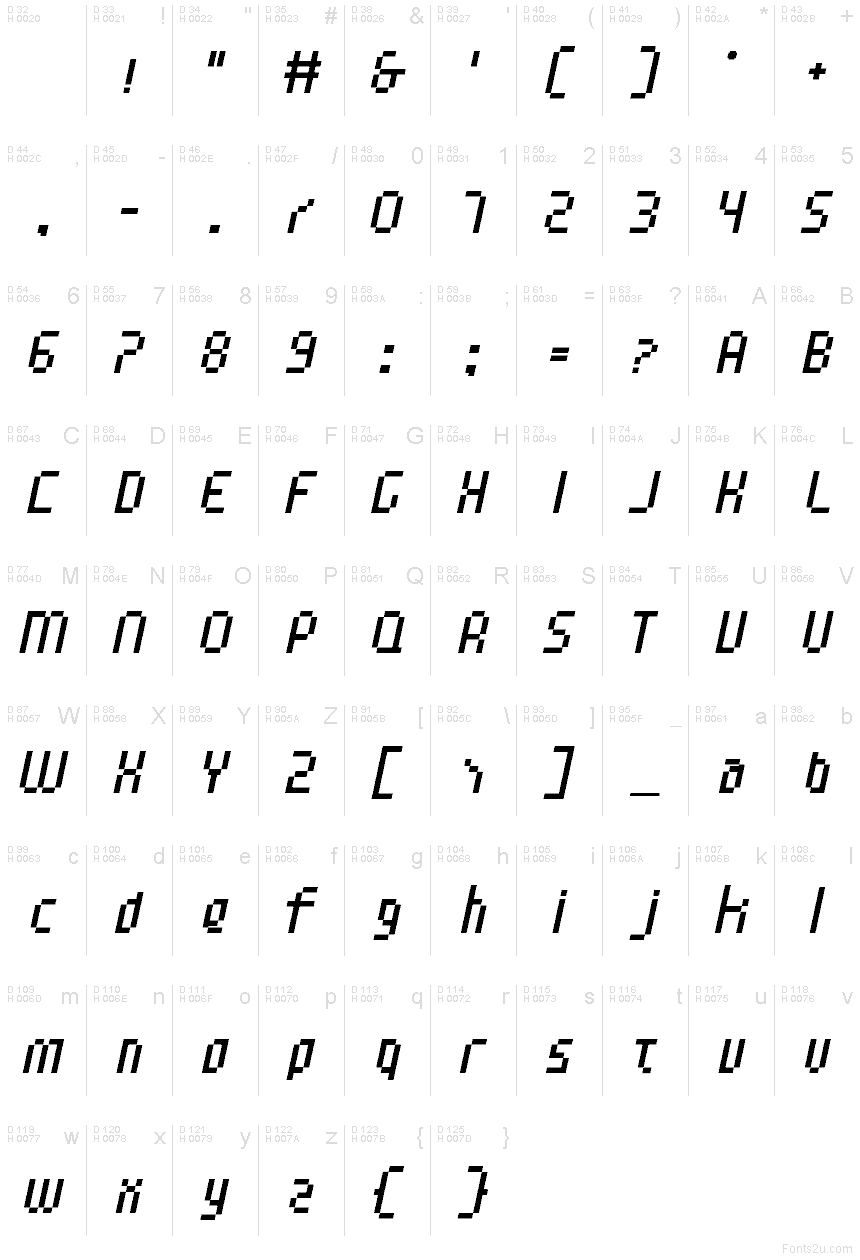
Speed Pixel Italic
Speed Pixel Italic font by ffeeaarr is a free techno display typeface from the Speed Pixel family that turns a strict grid into motion. Every letter leans hard into a forward slant, with crisp, stair-stepped strokes that feel like 8‑bit speed lines. The result is crunchy, high-energy text that reads fast and hits with a retro-futurist snap.
Using Speed Pixel Italic, headlines bolt across the screen—great for gaming overlays, e‑sports branding, synthwave posters, speedrunning thumbnails, sci‑fi UI labels, tech event promos, and retro arcade merch. Its consistent pixel rhythm keeps words compact and punchy, so go bold and increase tracking slightly for clarity. Pair this free font with a clean geometric sans for body copy to keep the spotlight on its kinetic grid.